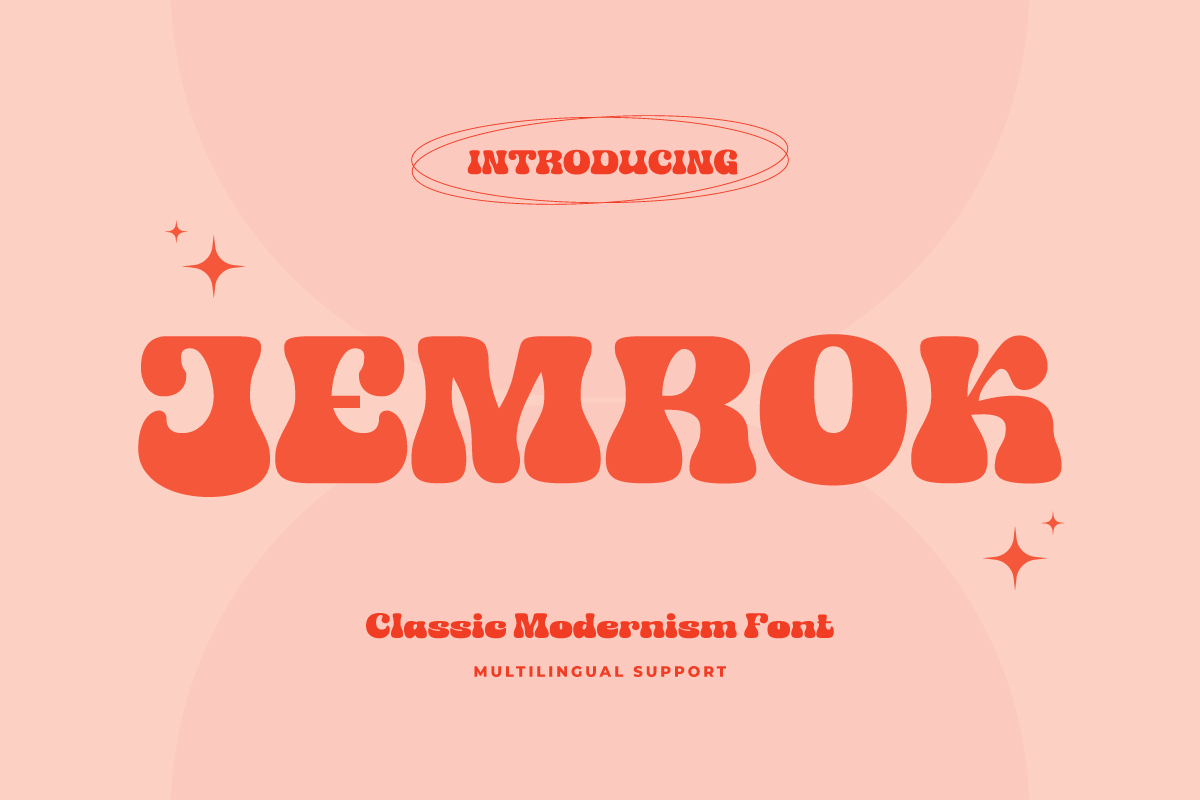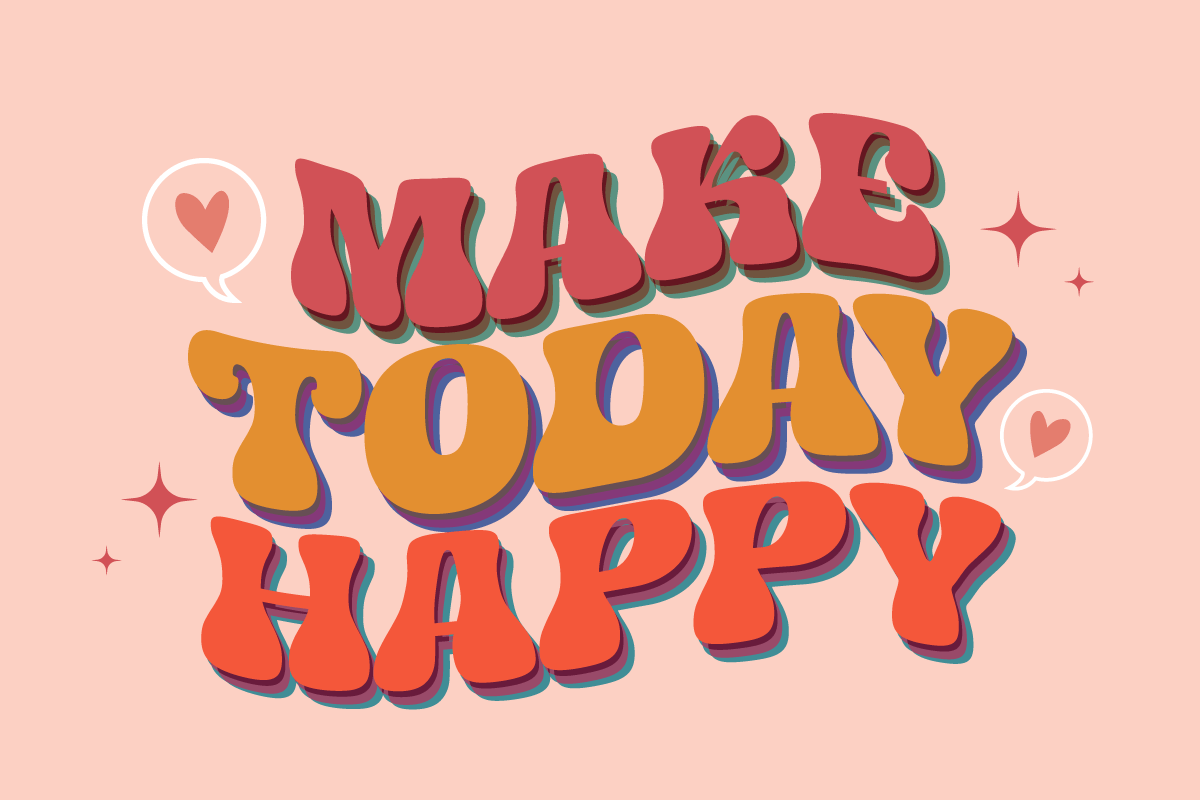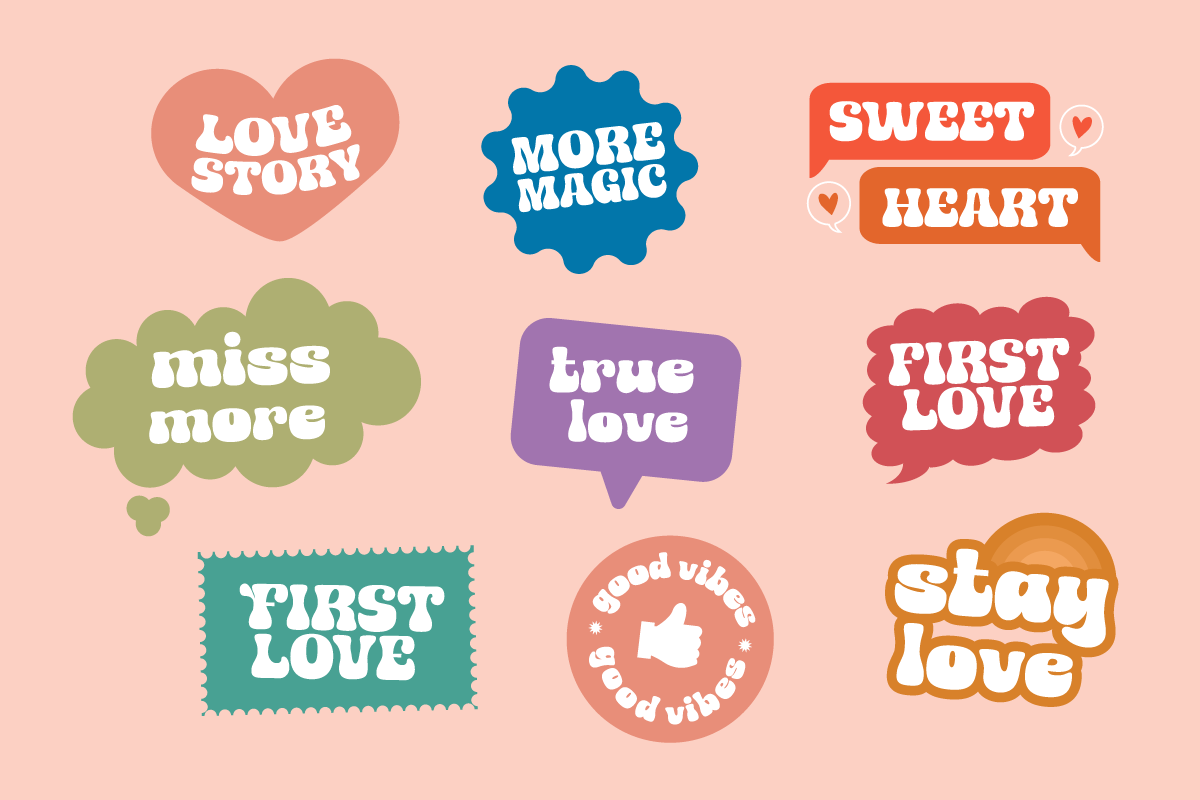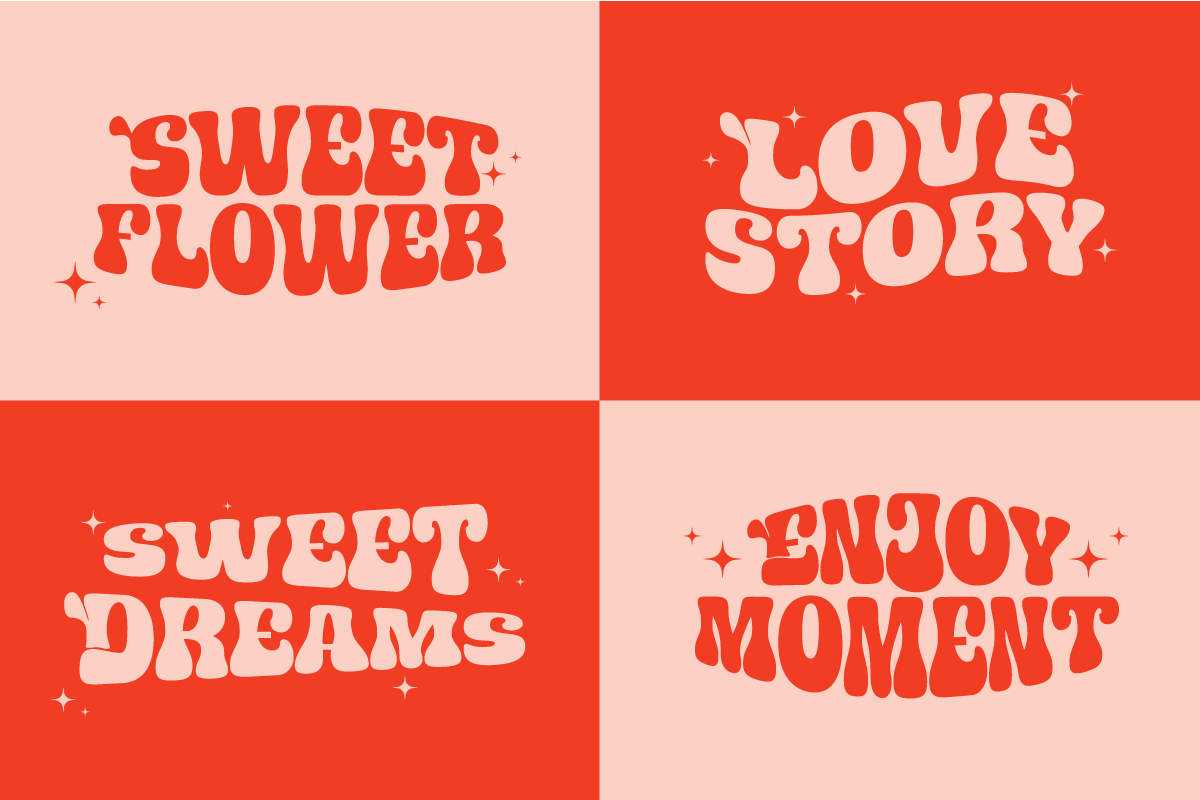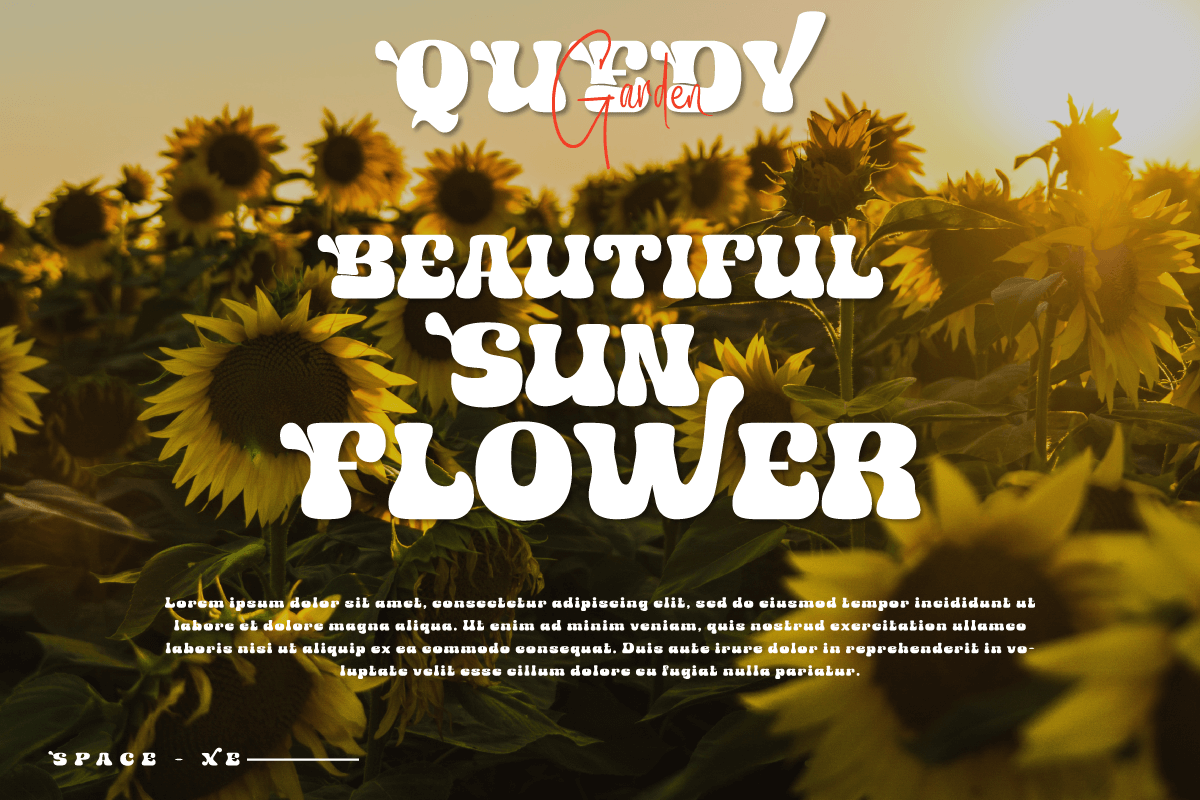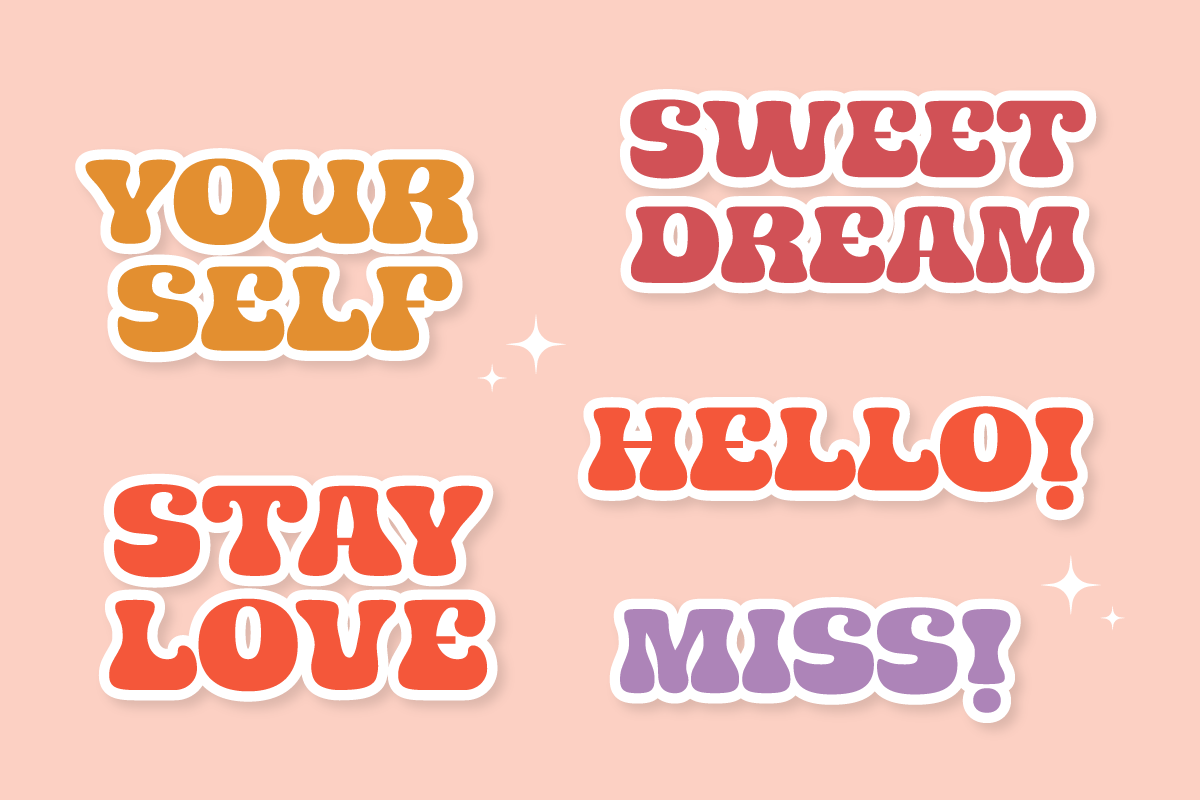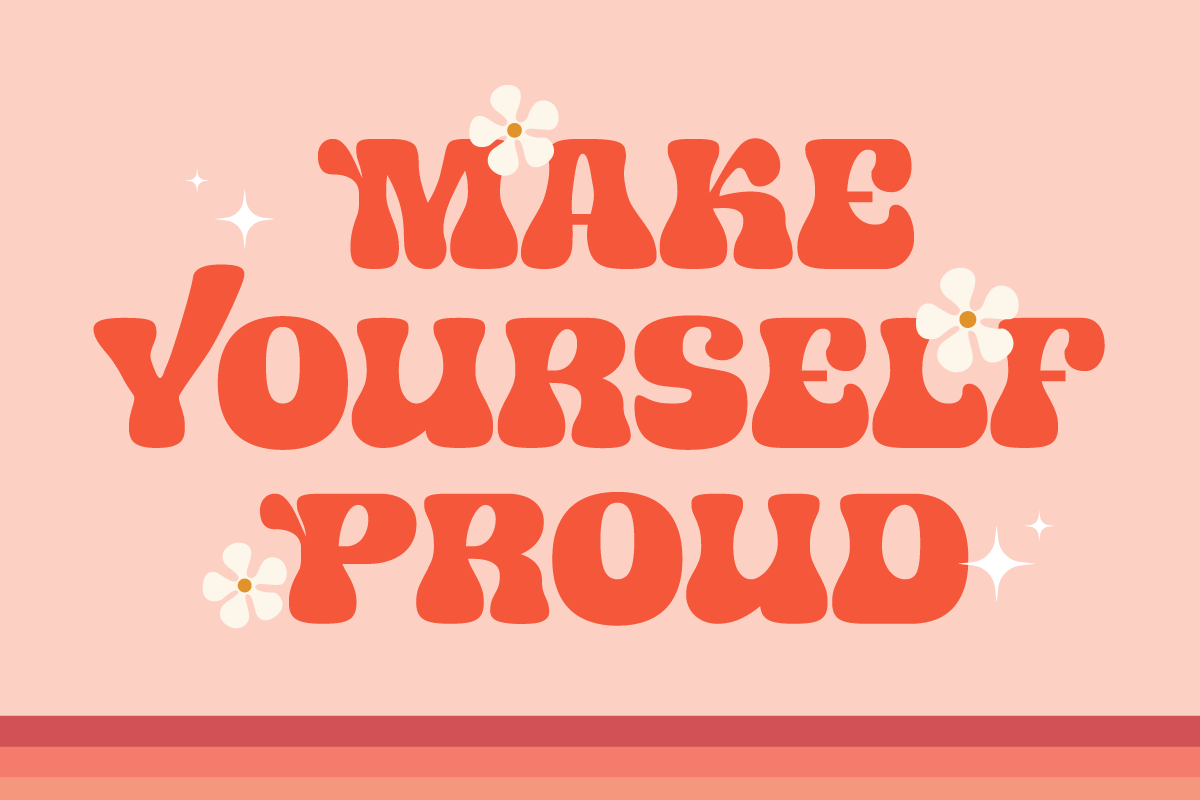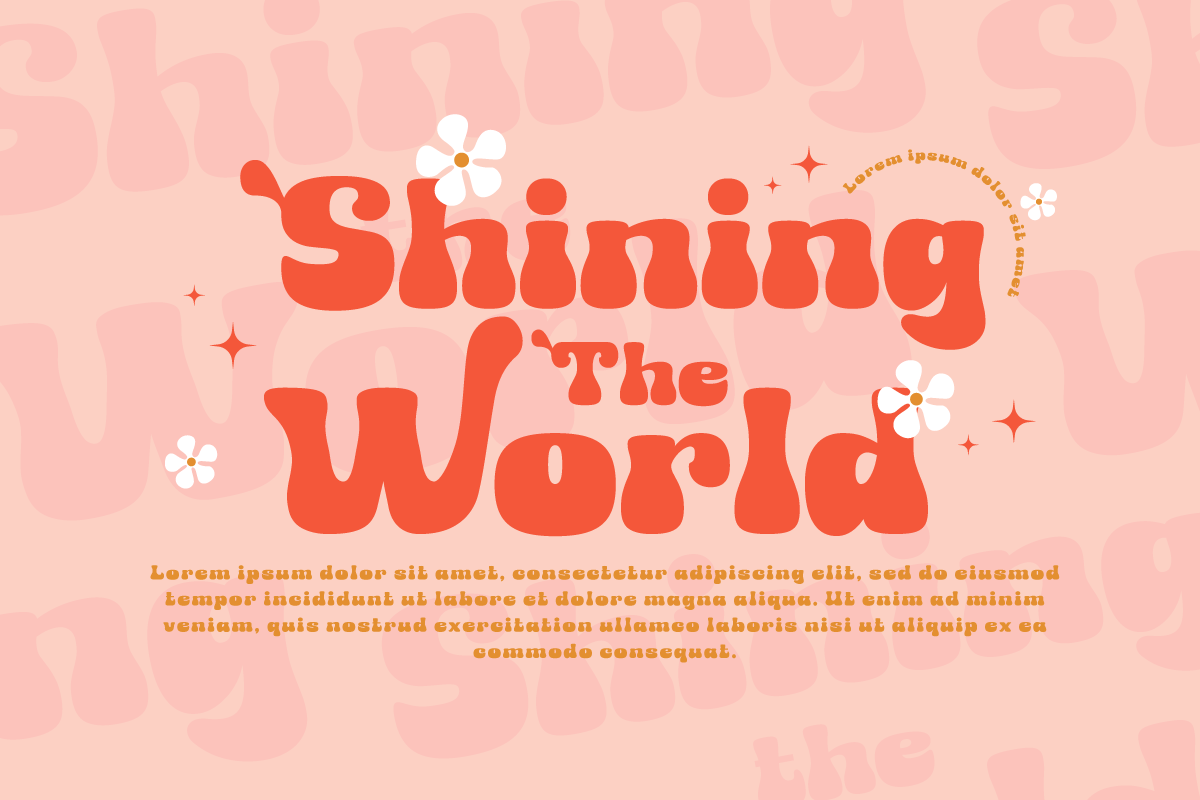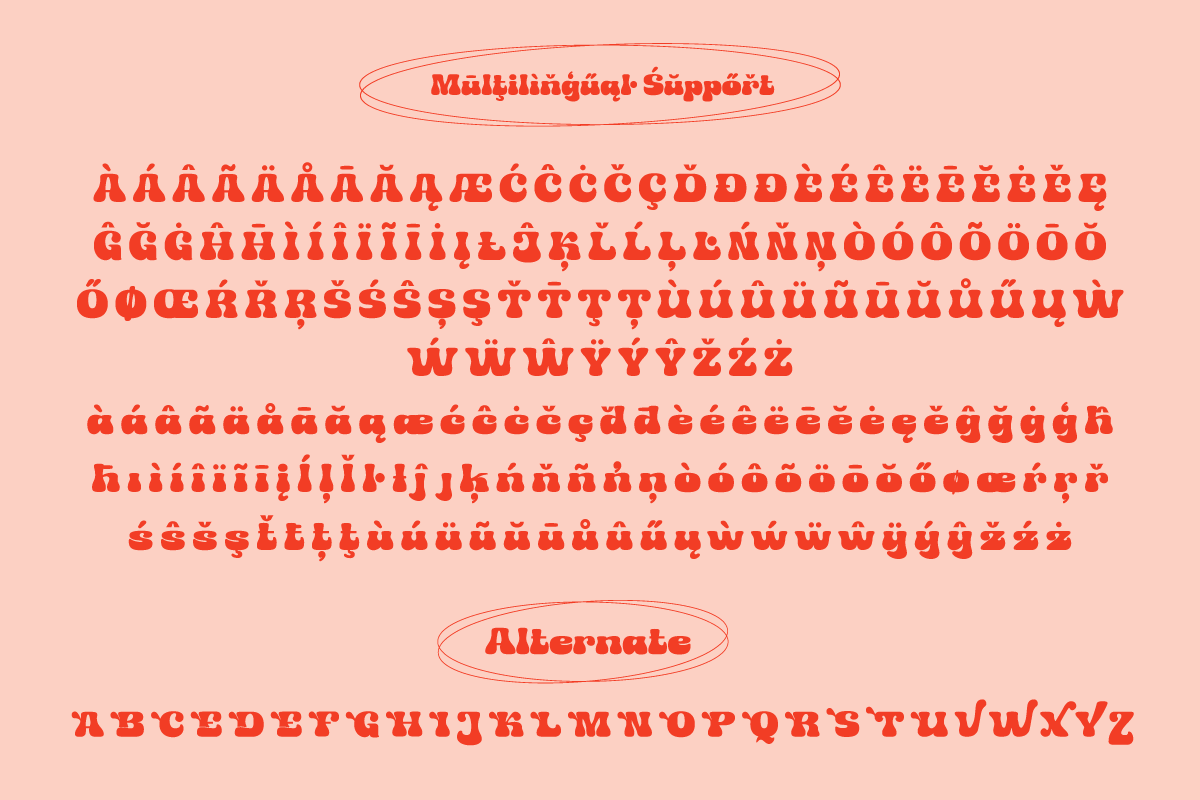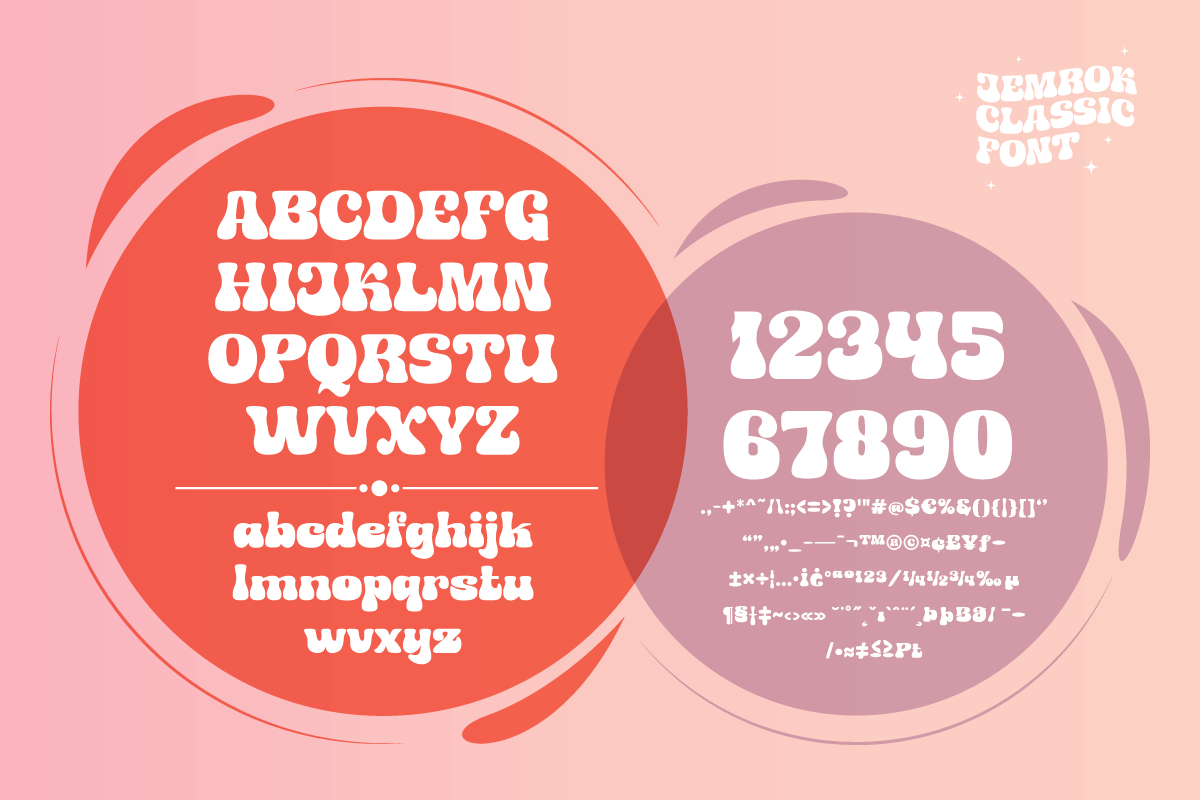
- JEMROK – Classic Serif font
Jemrok is a stunning display font that embodies a classic modernist style. With its beefy and elegant design, this font is perfect for creating stylish and sophisticated designs. The letters are happily made with cute and adorable shapes giving it a different, unique, and professional look.
Jemrok has a unique combination of classic and modern elements that makes it stand out from other display fonts. The characters are designed to be bold and impactful, making them perfect for headlines, titles, and branding. This font also comes with different characters and alternatives, allowing for even more creative possibilities.
Whether you design logos create posters or design websites, Jemrok is the perfect choice for any project that requires a classic modernist style. With its timeless design and versatility, this font is sure to make your designs stand out and leave a lasting impression.